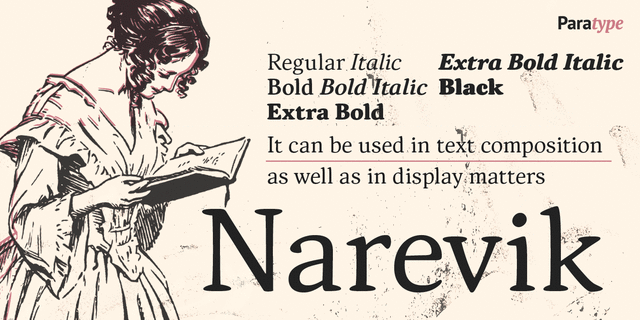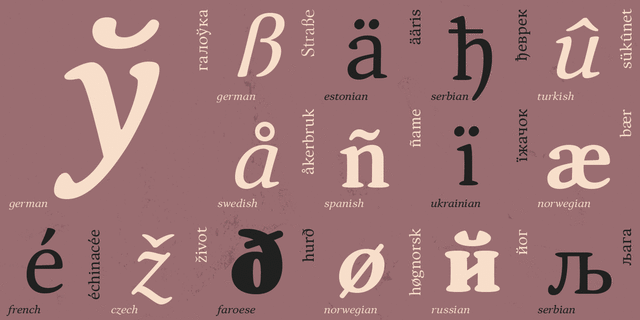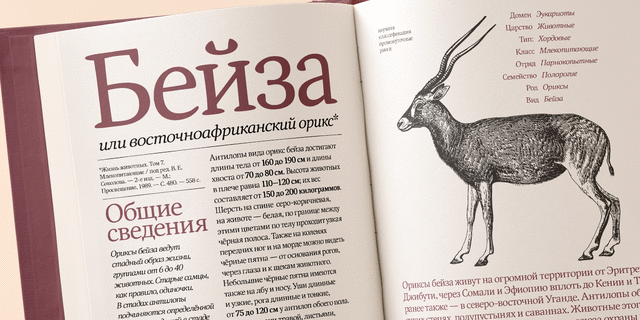
Narevik (7 fonts)
About NarevikNarevik typeface family consists of 7 styles: 4 uprights (including black) and 3 italics. It’s a low contrast type with slightly rounded triangle serifs and drops. Vertical strokes have gentle intasis that bring additional softness to the shapes. The family was created by an Armenian designer Manvel Shmavonyan and got its name after his daughters Nare and Arevik. The typeface is well suited for any display and text use. Released by ParaType in 2011.
Features of font family NarevikThe hit of the decade:
Hit of 1970s Narevik supports 84 languagesUkrainian, English, German, Polish, Portuguese, Spanish, French, Russian, Czech, Dutch, Italian, Swedish, Turkish, Finnish, Belarusian, Serbian, Bulgarian, Estonian, Lithuanian, Albanian, Afrikaans, Basque, Breton, Valencian, Galician, Gaelic (Scottish), Danish, Indonesian, Irish, Icelandic (Win), Karakalpak, Catalan, Norwegian, Occitan, Rhaeto-Romance, Sami Lule, Tswansky, Uzbek (Lat.), Faroese, Frisian, Chamorro, Estonian (Win), South Sami, Albanian (Win), Hungarian, Upper leprechauny, Karelian, Latvian (Mac), Lithuanian (Mac), Maori (Mac), Moldovan (Lat.), Lower Sorbian, Romanian (Win), Slovak, Slovenian, Turkmen (Lat.), Croatian (Win), Estonian (Mac), Kurdish, Latvian, Maori, Romanian, Abazin, Avar, Agul, Adyghe, Darginsky, Ingush, Kabardino-Circassian, Kabardian, Karachay-Balkar, Kumyk, Lak, Lezghian, Macedonian, Mordovian-Moksha, Mordovian-Erzya, Nogai, Rutulian, Tabasaran, Tatar, Tsakhur, Chechen, Russian (XIX) Functions of font family NarevikTypeface use in layout:
Associations for font family NarevikTypeface personality and character:
Soft, calm, polite, pleasant, smooth, cultural, noble, classic, harmonious, comfortable, humanitarian, saturated, delicious, lush, friendly, cozy, kind, benevolent, plastic, heavy, generous, abundant, fat, notable, bright, active, splashy, plentiful